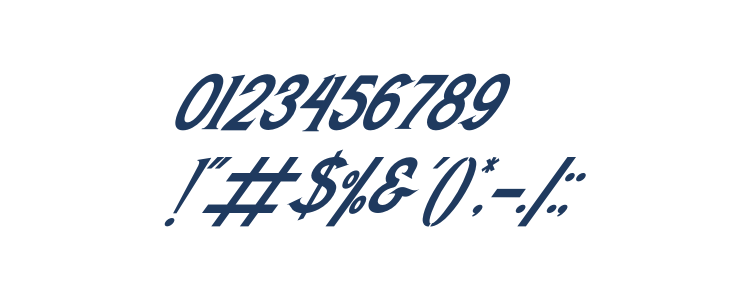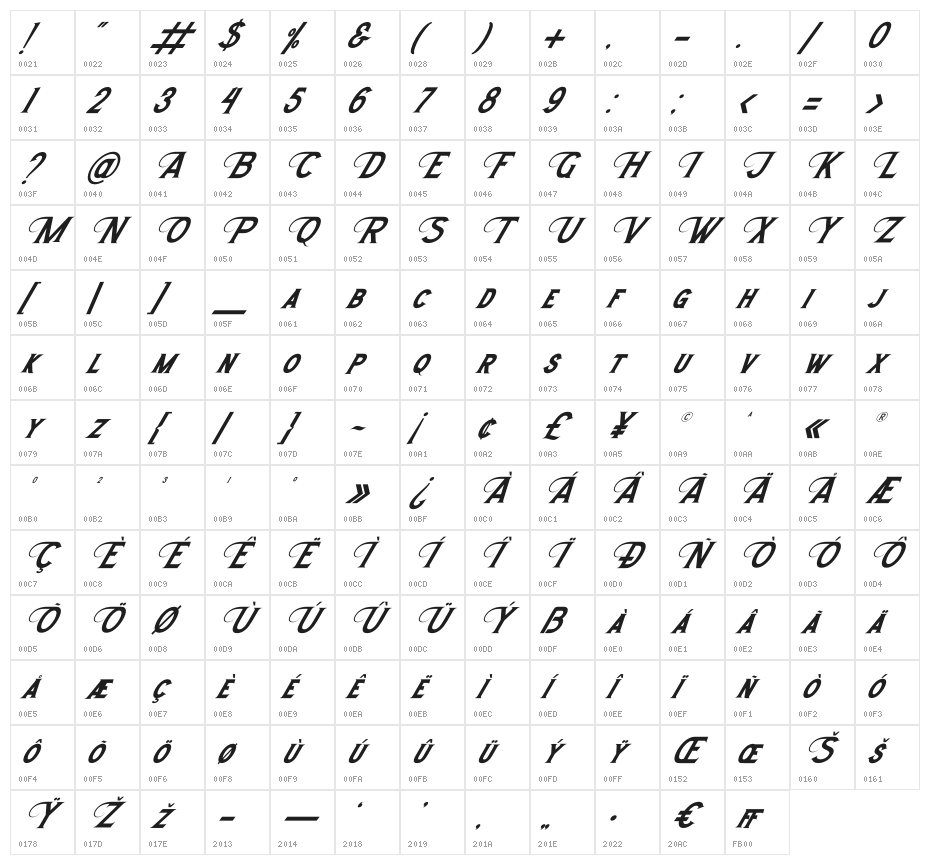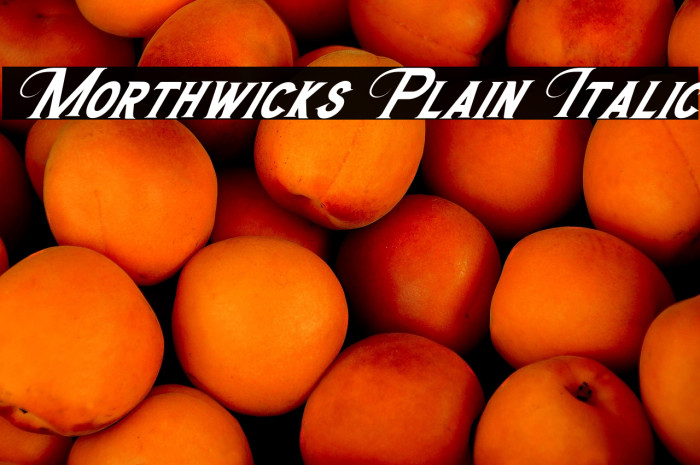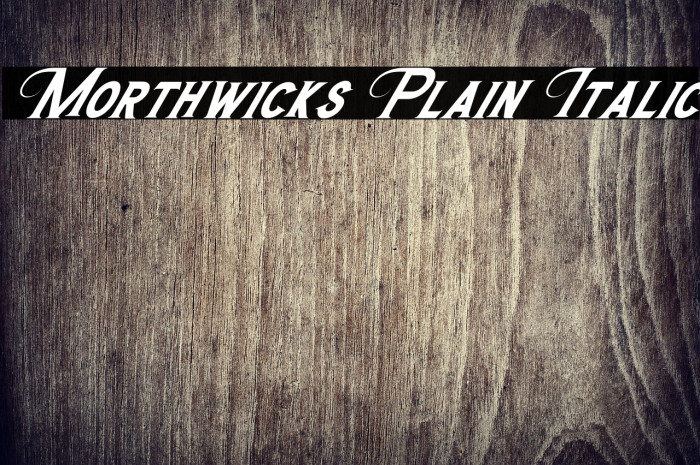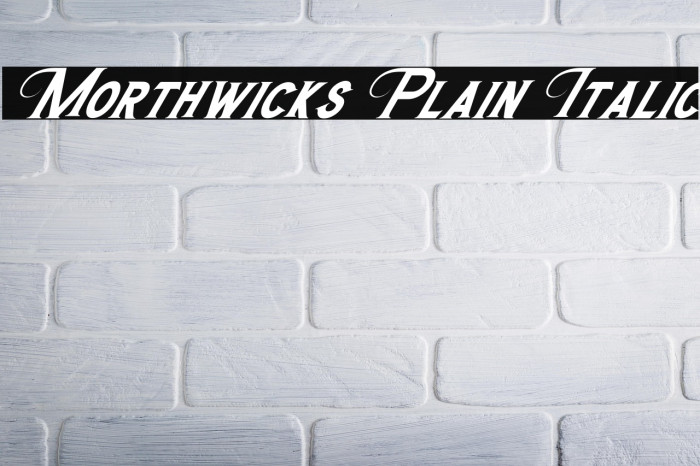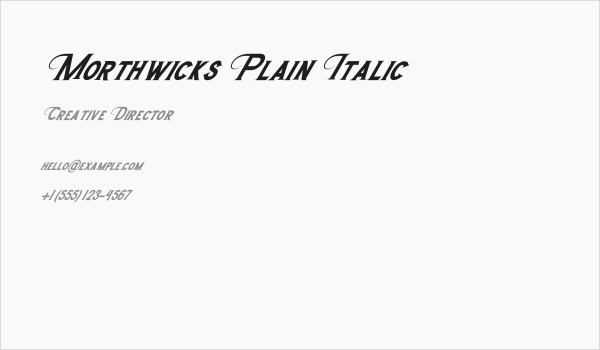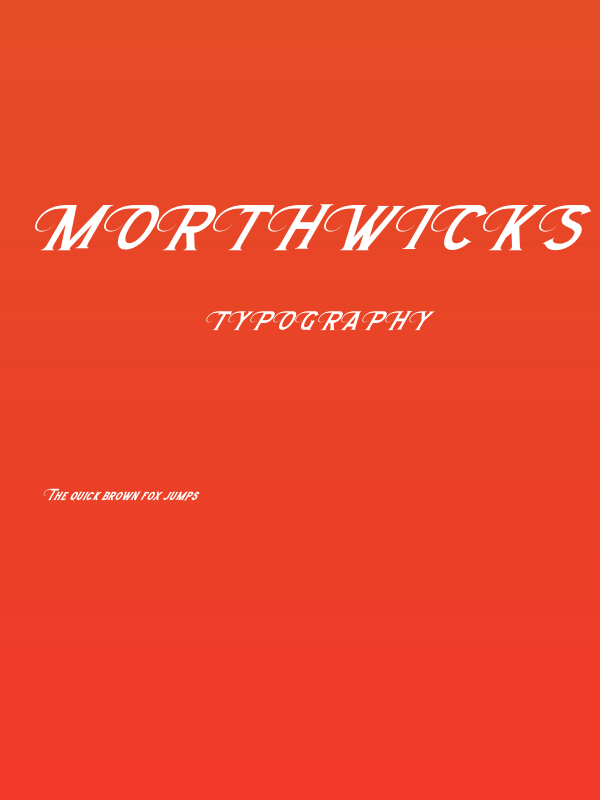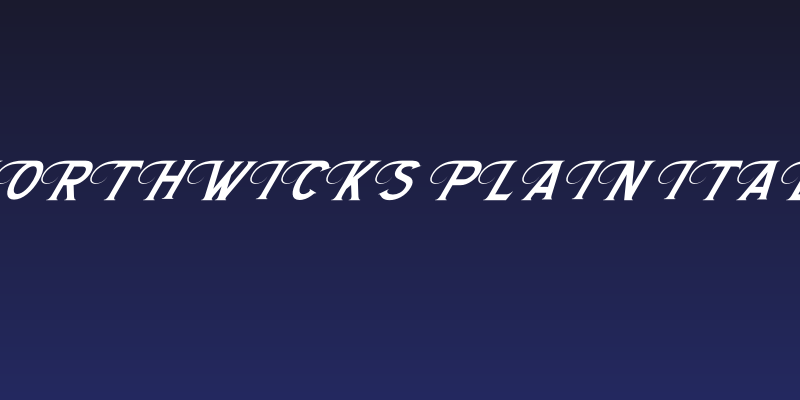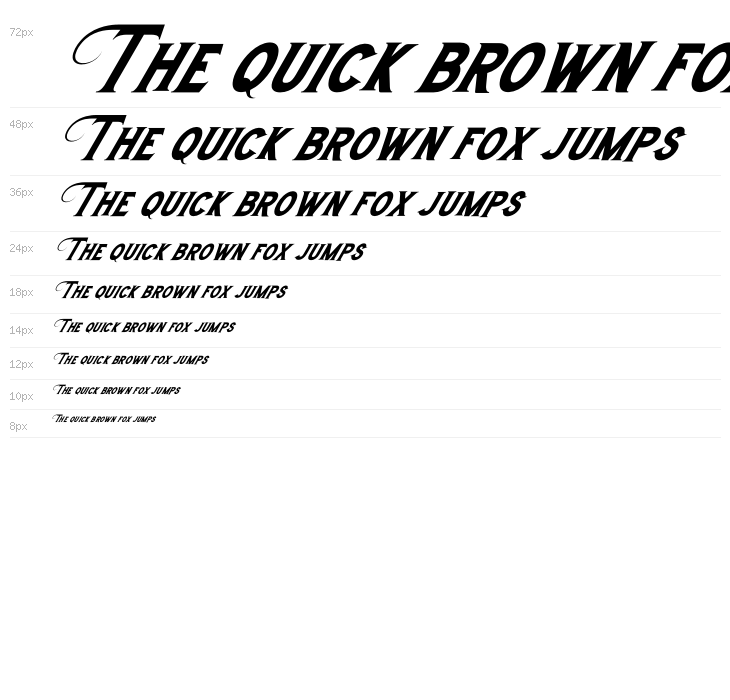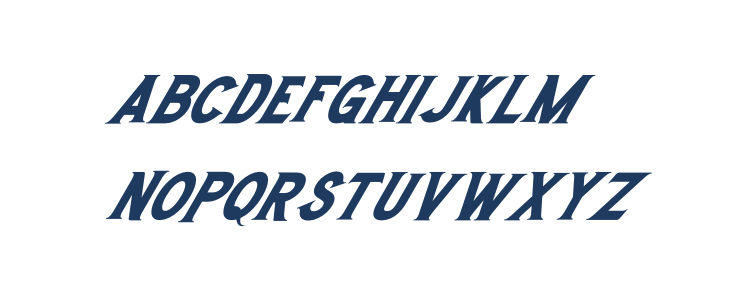
Morthwicks Plain Italic Font
Morthwicks Plain Italic Description
This font features a dynamic and elegant italic style with a distinct slant, giving it a sense of motion and sophistication. The uppercase letters are bold and prominent, while the lowercase letters maintain a consistent flow, enhancing readability. The numerals are well-proportioned, matching the overall aesthetic of the font. Special characters are designed with the same attention to detail, ensuring they integrate seamlessly with the rest of the character set. The font's boldness and italic nature make it ideal for creating impactful and stylish designs.
| Proposed Projects | Ideal for branding, advertising, and editorial design where a strong and stylish presence is required. |